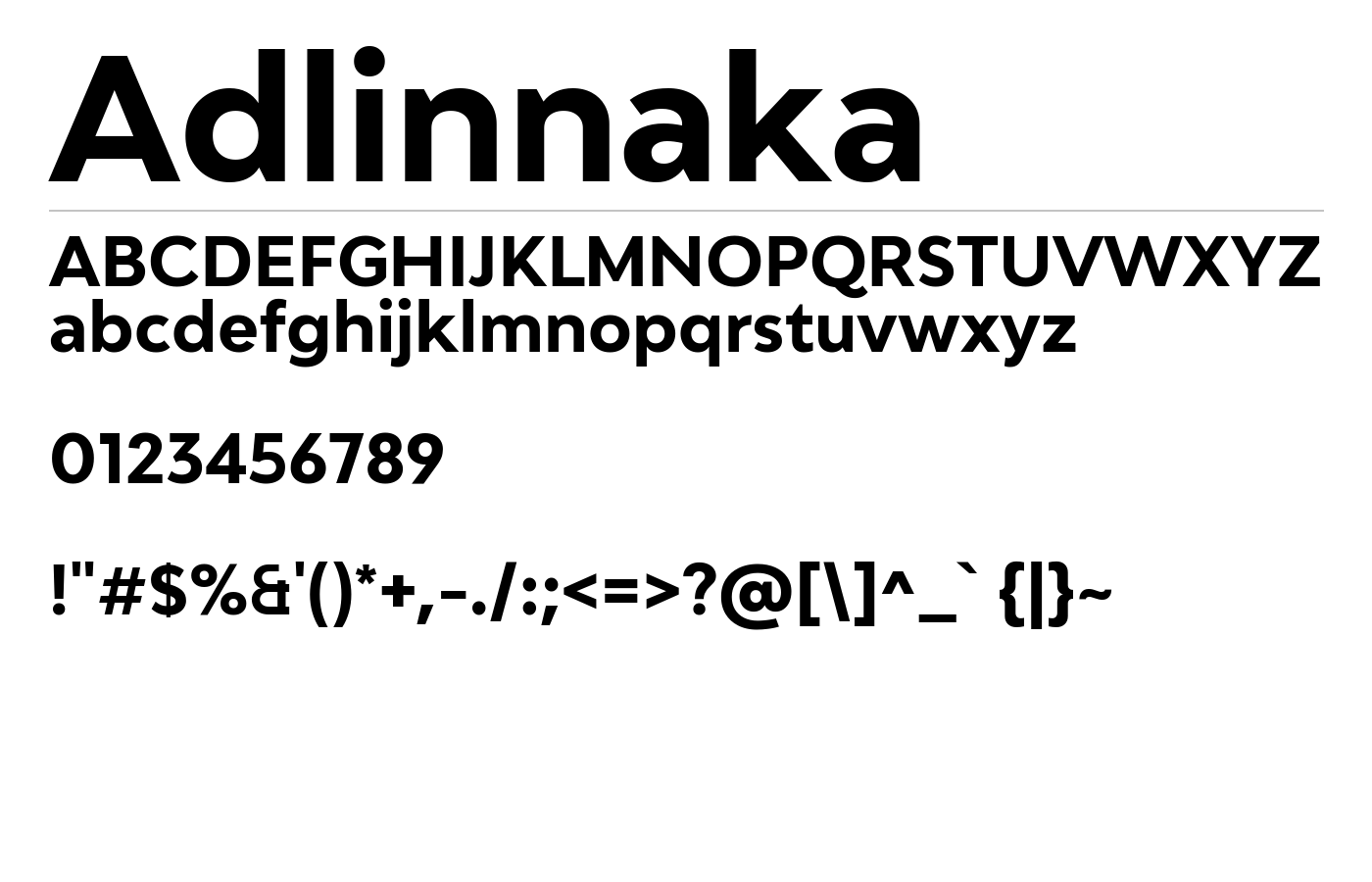
Adlinnaka is a bold, clean sans serif font with a modern and geometric feel. Its strong weight, generous x-height, and open letterforms make it highly readable and suitable for impactful headlines, branding, and digital content, conveying confidence and clarity. This versatile font works well across various design contexts where a contemporary and straightforward aesthetic is desired.
Adlinnaka Font